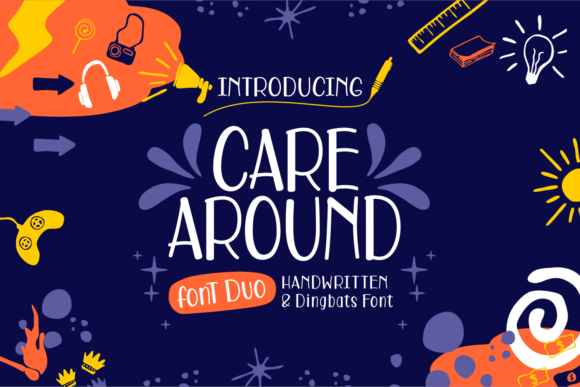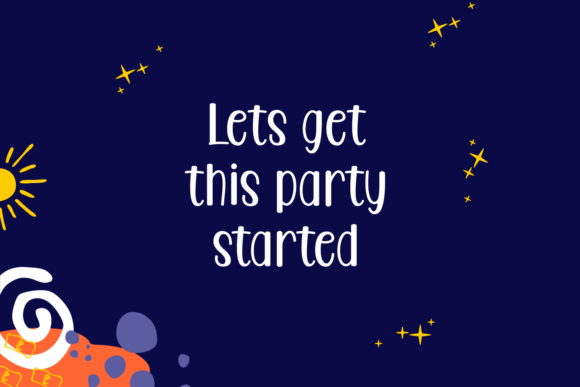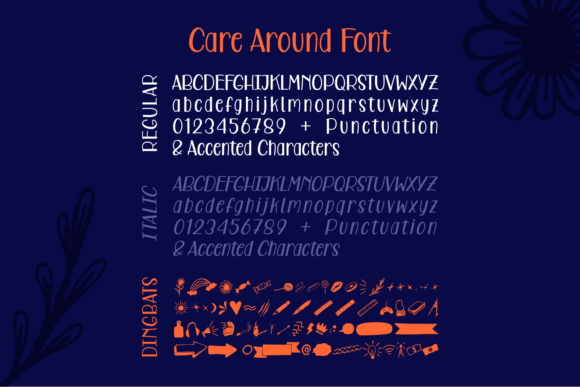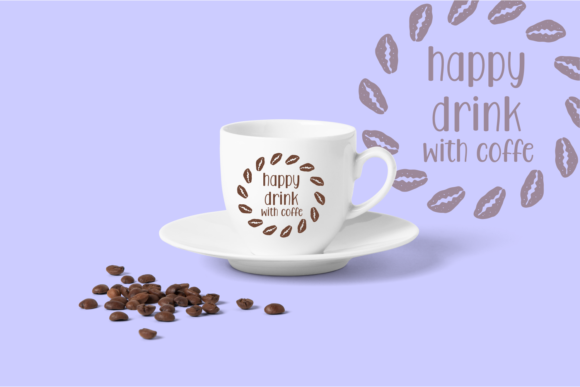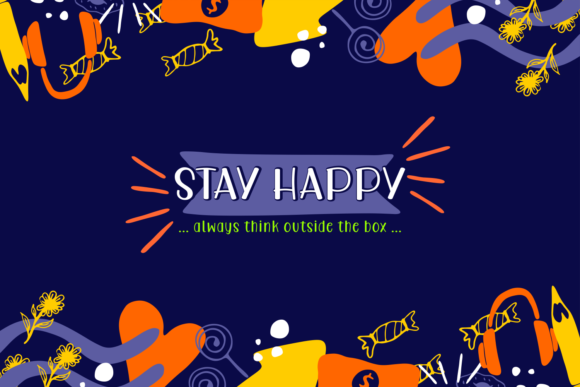
Care Around Font
About Care Around Font
The Care Around is a fun handwritten font duo. It has clear letters with a good readability.
It’s perfect for adding a playful touch to your designs!